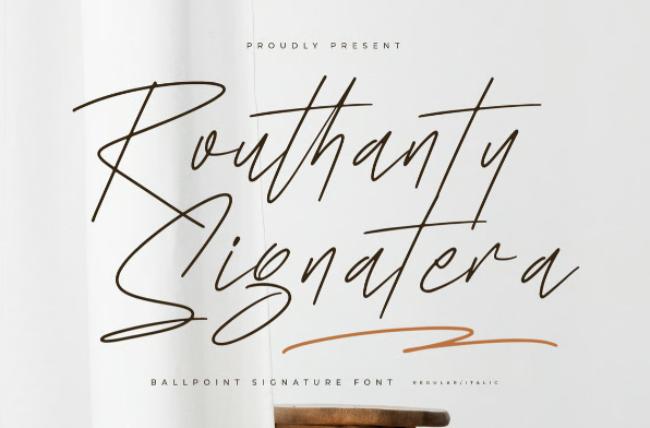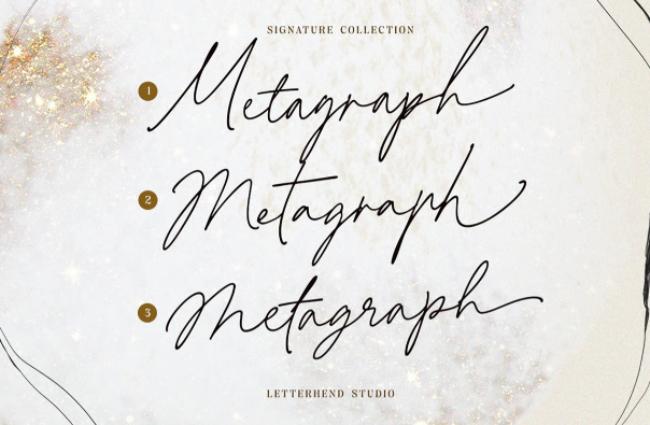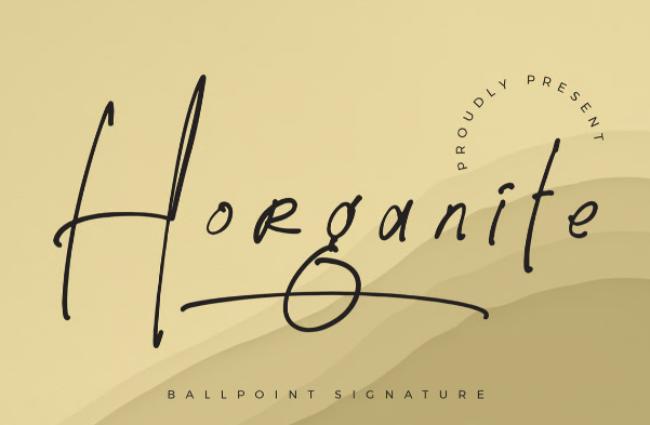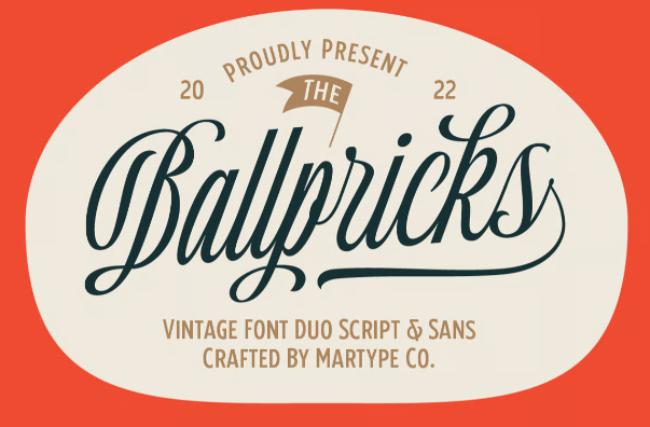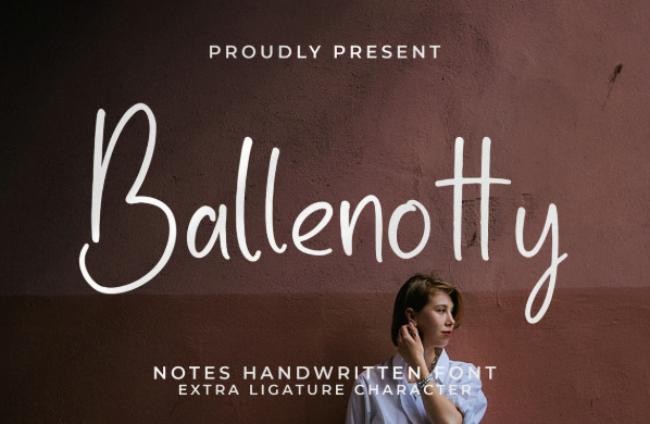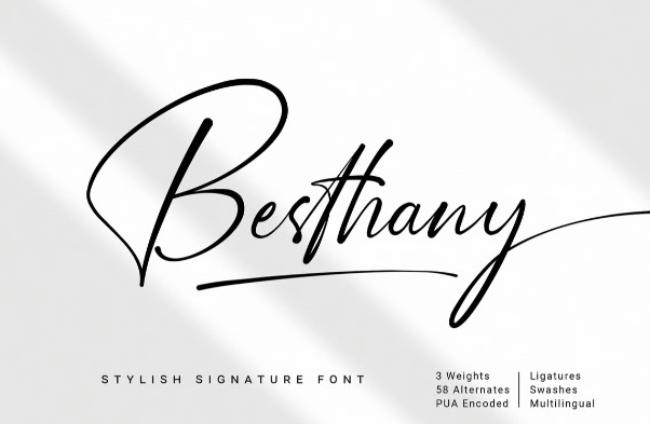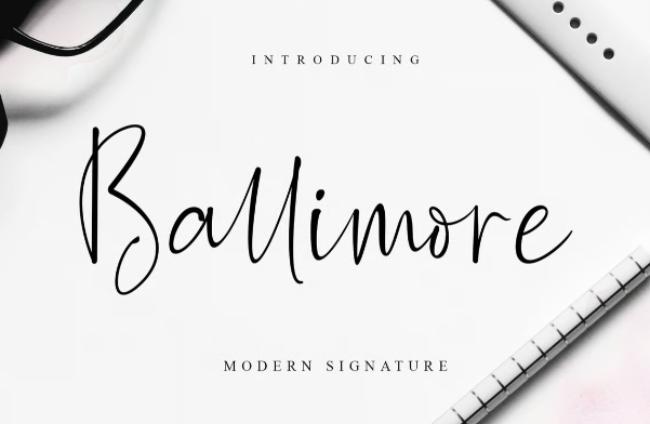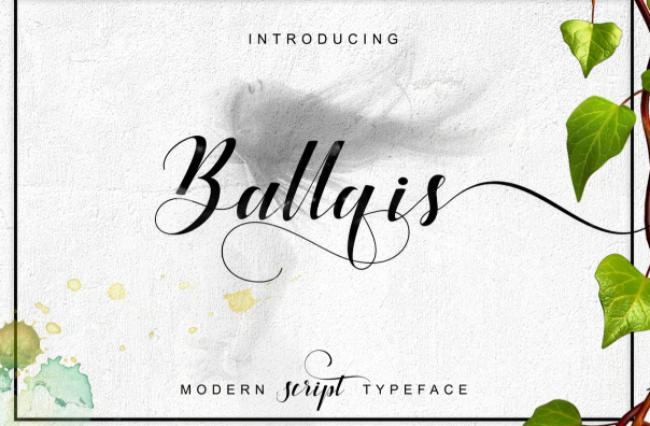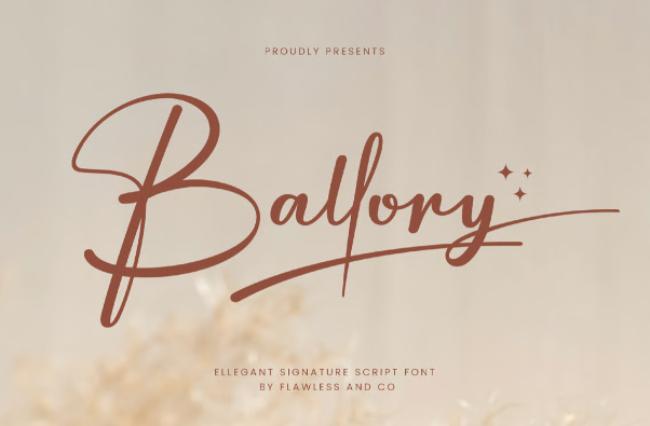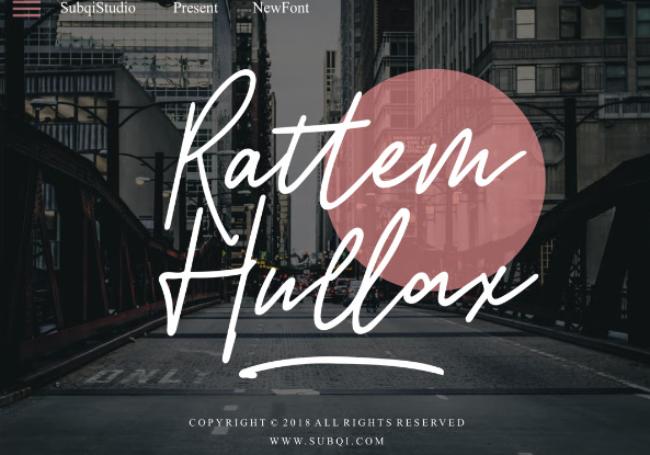
Ballpoint Fonts for Authentic Handwritten Design
Ballpoint font collections have revolutionized digital typography by bringing the authentic charm of handwritten text to modern design projects. These carefully crafted typefaces capture the natural flow, pressure variations, and organic imperfections that make ballpoint pen writing so appealing and personal.
Whether you’re designing greeting cards, logos, or marketing materials, a quality ballpoint font can add warmth and authenticity to your work. The beauty of these fonts lies in their ability to replicate the spontaneous nature of pen-to-paper writing, complete with subtle ink bleeds and stroke variations that digital fonts often lack.
In this comprehensive collection, we’ve curated 30 exceptional ballpoint font options that showcase different styles – from elegant signatures to casual handwriting. Each ballpoint font in our selection offers unique characteristics that can enhance your creative projects with that coveted handmade aesthetic. These fonts are perfect for branding, invitations, packaging design, and any project where you want to establish a personal connection with your audience.
Anthonia – Ballpoint Font
Anthonia is an elegant signature-style ballpoint font that perfectly captures the fluid motion of pen strokes. This sophisticated typeface features natural connecting strokes and varying line weights that mimic authentic ballpoint pen writing. Ideal for luxury branding, wedding invitations, and premium packaging design, Anthonia brings a touch of refinement to any project requiring a personal, handwritten feel.
Routhanty Signatera – Ballpoint Font
Routhanty Signatera embodies the essence of a confident signature written with a smooth ballpoint pen. This distinctive font features bold strokes with natural pressure variations, creating an authoritative yet approachable appearance. Perfect for corporate branding, certificates, and professional documents where you want to maintain authenticity while projecting confidence and reliability.
Qeillita – Ballpoint Font
Qeillita offers a delicate and feminine approach to ballpoint font design, featuring graceful curves and elegant flourishes. This charming typeface captures the gentle flow of careful handwriting, making it perfect for beauty brands, lifestyle blogs, and romantic-themed projects. The font’s organic letter spacing and natural ink flow create an intimate, personal connection with readers.
Metagraph – Ballpoint Font
Metagraph presents a modern interpretation of ballpoint pen writing with clean, legible letterforms. This versatile font balances readability with handwritten charm, featuring consistent stroke weights and natural letter connections. Excellent for editorial design, modern branding, and digital interfaces where you need the warmth of handwriting without sacrificing clarity and professionalism.
Horganite Ballpoint – Ballpoint Font
Horganite Ballpoint captures the essence of quick, confident handwriting with dynamic stroke variations and natural flow. This energetic font features authentic ballpoint pen characteristics including subtle ink buildup and organic letter spacing. Perfect for creative agencies, artistic projects, and brands that want to convey creativity and spontaneity while maintaining professional appeal.
Linoleo Script – Ballpoint Font
Linoleo Script offers a casual, everyday handwriting style that feels approachable and friendly. This relaxed ballpoint font features natural letter variations and organic spacing that mimics comfortable, unhurried writing. Ideal for personal branding, blog headers, and projects requiring a down-to-earth, authentic voice that connects with audiences on a personal level.
Ballarea – Ballpoint Font
Ballarea combines contemporary style with handwritten authenticity, creating a sophisticated ballpoint font perfect for modern applications. This refined typeface features smooth letter connections and balanced proportions while maintaining the organic feel of pen-written text. Excellent for high-end brands, editorial design, and premium packaging where elegance meets approachability.
Paperink – Ballpoint Font
Paperink captures the authentic texture and flow of ballpoint pen on paper, complete with subtle ink variations and natural writing rhythm. This genuine-feeling font showcases realistic pressure changes and organic letter formation that brings digital text to life. Perfect for artisanal brands, craft businesses, and projects requiring an authentic, handmade aesthetic.
Ballpricks Vintage Script & Sans – Ballpoint Font
Ballpricks offers a vintage-inspired ballpoint font collection that evokes nostalgia and timeless appeal. This versatile set includes both script and sans-serif variations, capturing the charm of mid-century handwriting. Ideal for retro branding, vintage-themed projects, and designs that need to convey heritage and established authenticity.
Orlando Sign – Ballpoint Font
Orlando Sign presents a stylistic monoline approach to ballpoint font design, featuring consistent stroke weights and flowing connections. This clean yet handwritten font offers excellent legibility while maintaining the personal touch of ballpoint pen writing. Perfect for signage, logos, and branding applications where clarity and character need to coexist harmoniously.
Ballonest – Ballpoint Font
Ballonest embodies casual, everyday handwriting with natural imperfections and organic flow that makes it incredibly authentic. This approachable ballpoint font features realistic letter variations and natural spacing that creates a warm, personal connection. Excellent for informal communications, personal branding, and projects requiring a friendly, accessible voice.
Besthany Stylish Signature – Ballpoint Font
Besthany combines elegance with contemporary style, creating a sophisticated signature-style ballpoint font. This refined typeface features graceful flourishes and smooth connections that convey professionalism with a personal touch. Ideal for luxury brands, high-end services, and applications where you need to project both expertise and approachability.
Ballenotty – Ballpoint Font
Ballenotty offers a playful yet sophisticated approach to ballpoint font design, featuring dynamic letterforms and expressive character. This engaging typeface captures the spontaneity of natural handwriting while maintaining excellent readability. Perfect for creative industries, lifestyle brands, and projects that need to balance professionalism with creative energy.
Ballimore – Ballpoint Font
Ballimore presents a modern signature style that balances contemporary design with handwritten authenticity. This sleek ballpoint font features clean lines with natural flow variations, creating a professional yet personal appearance. Excellent for modern branding, corporate communications, and digital applications where sophistication meets approachability.
Ballory – Ballpoint Font
Ballory embodies elegant signature writing with refined flourishes and graceful letter connections. This sophisticated ballpoint font captures the essence of confident, practiced handwriting with beautiful rhythm and flow. Perfect for luxury applications, wedding stationery, and premium branding where elegance and personal touch are paramount.
Ballqis – Ballpoint Font
Ballqis offers a distinctive script style with unique character and personality. This expressive ballpoint font features bold strokes and confident letterforms that make a strong visual impact. Ideal for branding projects, headlines, and applications where you need a font that stands out while maintaining the authentic feel of handwritten text.
Authentive – Ballpoint Font
Authentive lives up to its name by delivering genuine marker-style ballpoint font characteristics with natural variations and organic flow. This realistic typeface captures the essence of quick, confident writing with authentic ink behavior and letter formation. Perfect for casual branding, creative projects, and applications requiring an honest, unpretentious aesthetic.
AMR Rattem Hullax – Ballpoint Font
AMR Rattem Hullax presents a unique approach to ballpoint font design with distinctive character shapes and creative letterforms. This innovative typeface combines traditional handwriting elements with contemporary design sensibilities. Excellent for artistic projects, creative branding, and applications where you need a font that’s both readable and visually striking.
Bellingham Script – Ballpoint Font
Bellingham Script offers classic cursive elegance with modern ballpoint font authenticity. This refined typeface features traditional script letterforms enhanced with realistic pen stroke variations and natural flow. Perfect for formal invitations, certificates, and traditional branding applications where timeless elegance meets contemporary functionality.
Ballpoint Modern Display Font
This modern display ballpoint font combines contemporary design principles with handwritten authenticity, creating a versatile typeface for headlines and display text. The font features clean letterforms with subtle handwritten details that add character without compromising readability. Ideal for modern branding, editorial design, and digital applications requiring impact and personality.
Annethy – Ballpoint Font
Annethy captures the charm of personal handwriting with natural variations and organic character spacing. This intimate ballpoint font feels like receiving a handwritten note from a friend, complete with authentic imperfections and genuine warmth. Perfect for personal branding, lifestyle applications, and projects requiring a heartfelt, authentic connection with the audience.
Monthly Stories – Ballpoint Font
Monthly Stories embodies the narrative quality of journal writing with flowing letterforms and natural rhythm. This storytelling ballpoint font captures the essence of personal documentation and diary entries. Excellent for editorial design, blog headers, and applications where you want to convey a sense of ongoing narrative and personal journey.
Ballpoint Rush – Ballpoint Font
Ballpoint Rush captures the energy and spontaneity of quick, confident writing with dynamic stroke variations and natural flow. This energetic ballpoint font conveys urgency and creativity while maintaining excellent readability. Perfect for action-oriented brands, dynamic messaging, and projects that need to convey movement and forward momentum.
Auto Ballpoint – Ballpoint Font
Auto Ballpoint offers automated elegance with consistent quality and natural handwritten characteristics. This reliable ballpoint font provides uniform letter spacing and predictable character behavior while maintaining authentic pen-written appeal. Ideal for applications requiring consistent branding, professional documentation, and reliable text rendering across various media.
TF-Ballpoint – Ballpoint Font
TF-Ballpoint delivers technical precision combined with handwritten warmth, creating a professional yet approachable typeface. This well-engineered ballpoint font features careful attention to spacing and kerning while preserving natural writing characteristics. Perfect for corporate communications, technical documentation, and professional branding requiring both credibility and personal touch.
Ballpoint Pen Font
This straightforward Ballpoint Pen Font focuses on authentic pen-to-paper replication with realistic ink flow and natural writing pressure. The font emphasizes genuine ballpoint pen characteristics including subtle ink variations and organic letter formation. Excellent for educational materials, informal communications, and projects requiring the most authentic handwritten appearance possible.
Ballpoint Signature – Ballpoint Font
Ballpoint Signature specializes in confident, authoritative signature-style writing with professional appeal. This distinguished ballpoint font features bold strokes and decisive letterforms that convey credibility and expertise. Perfect for professional services, legal applications, and corporate branding where authority and trustworthiness are essential messaging elements.
Golden Ballpoint – Ballpoint Font
Golden Ballpoint combines luxury aesthetics with authentic handwriting characteristics, creating a premium ballpoint font experience. This sophisticated typeface features refined letterforms with golden-ratio proportions and elegant stroke variations. Ideal for luxury brands, premium products, and high-end applications where quality and exclusivity need to be communicated through typography.
Oneliner – Ballpoint Font
Oneliner presents a streamlined approach to ballpoint font design with continuous, flowing letterforms that create seamless text flow. This efficient ballpoint font emphasizes readability and clean connections while maintaining the authentic feel of pen writing. Perfect for modern applications, minimal design projects, and contexts where clarity and elegance must coexist harmoniously.
Conclusion
This comprehensive collection of 40 ballpoint fonts demonstrates the incredible versatility and appeal of handwritten typography in digital design. Each font offers unique characteristics that can enhance your creative projects with authentic, personal touches that resonate with audiences seeking genuine connections in our increasingly digital world.